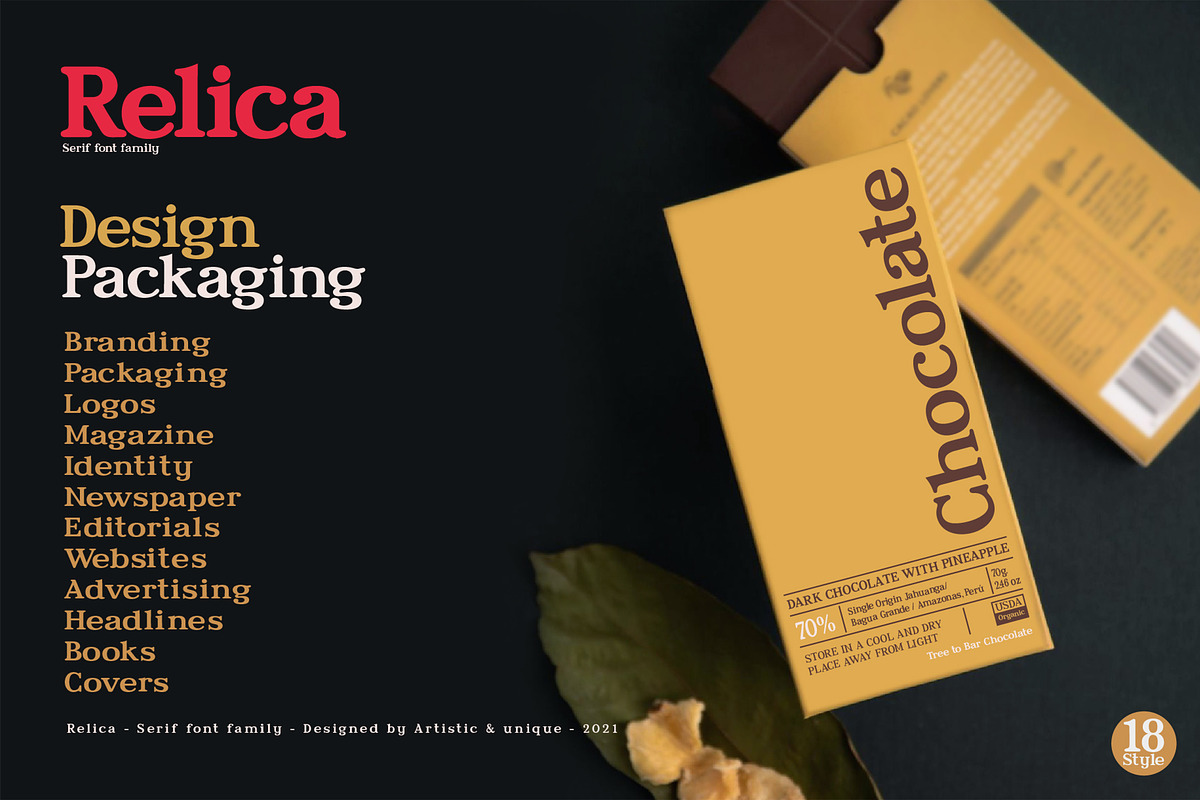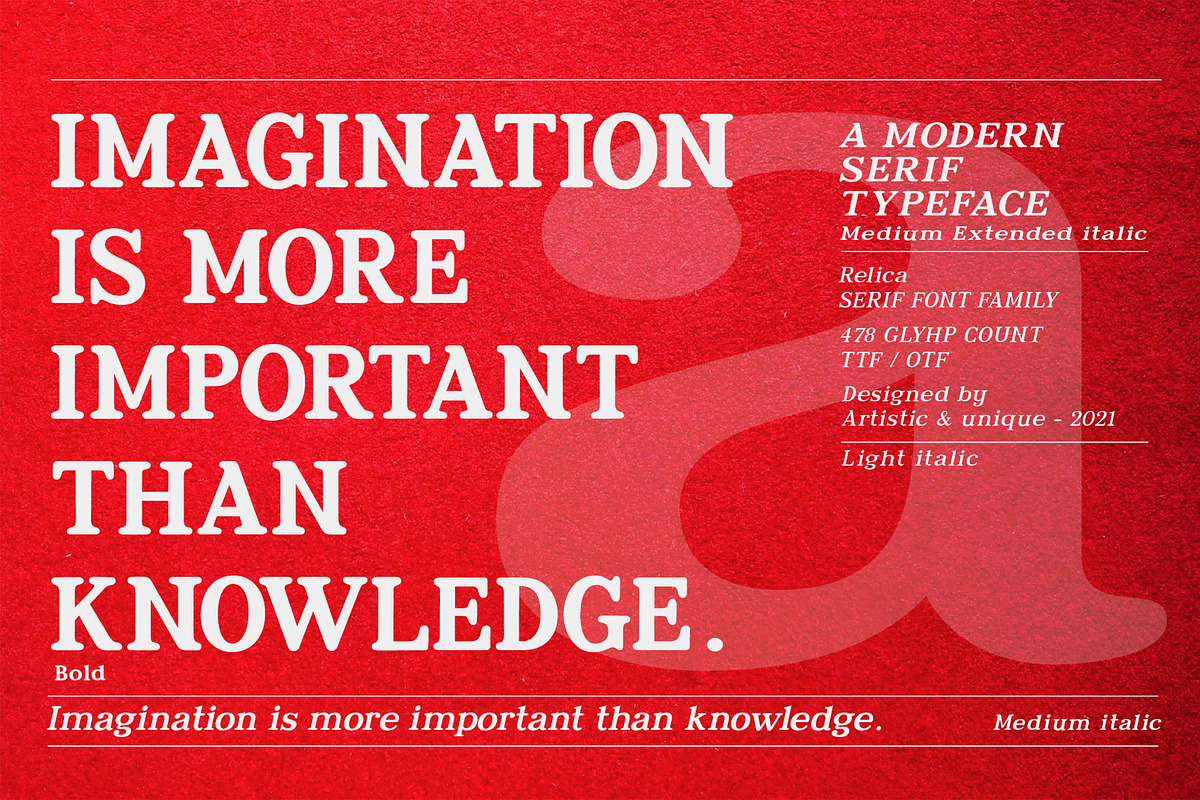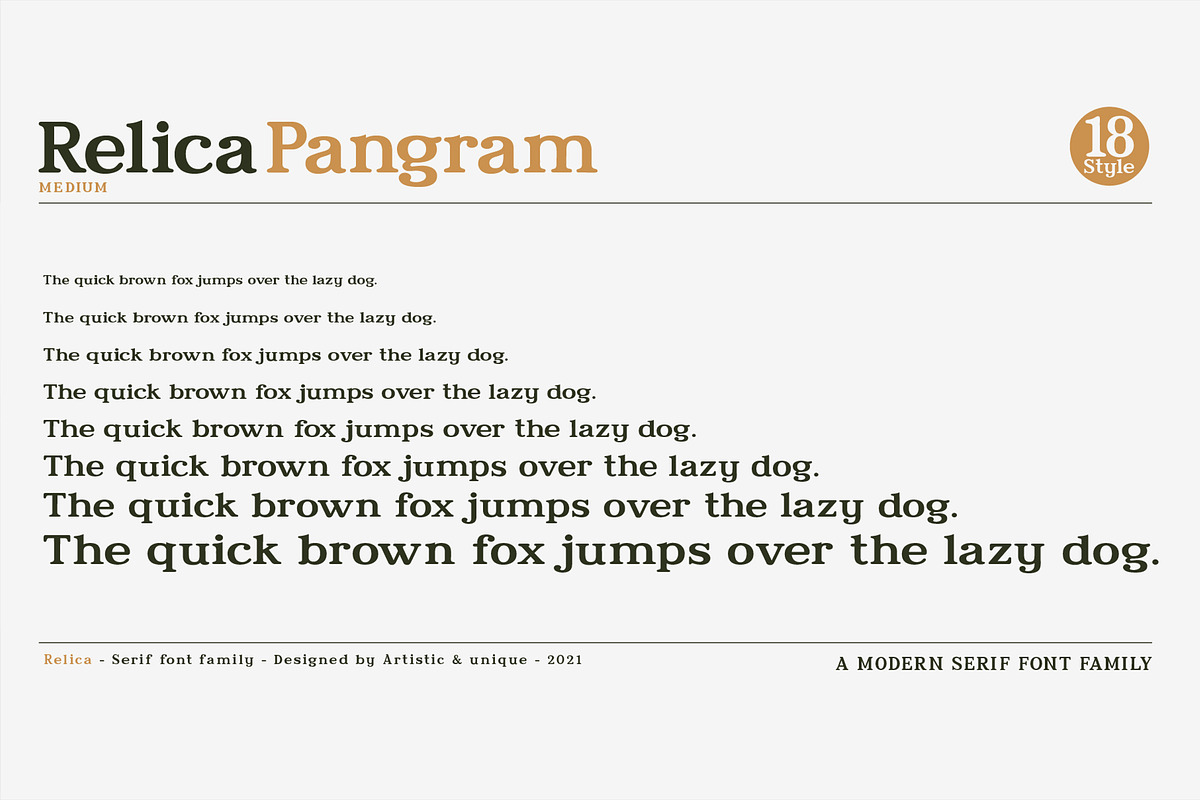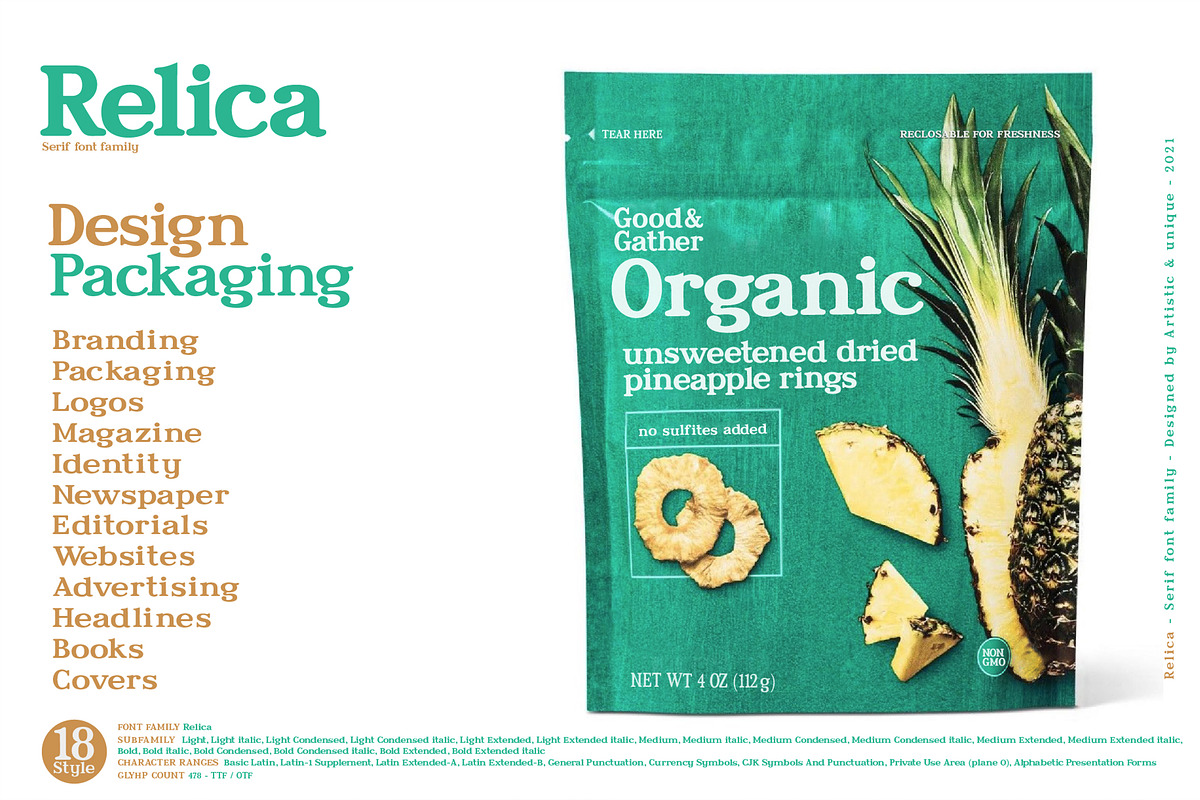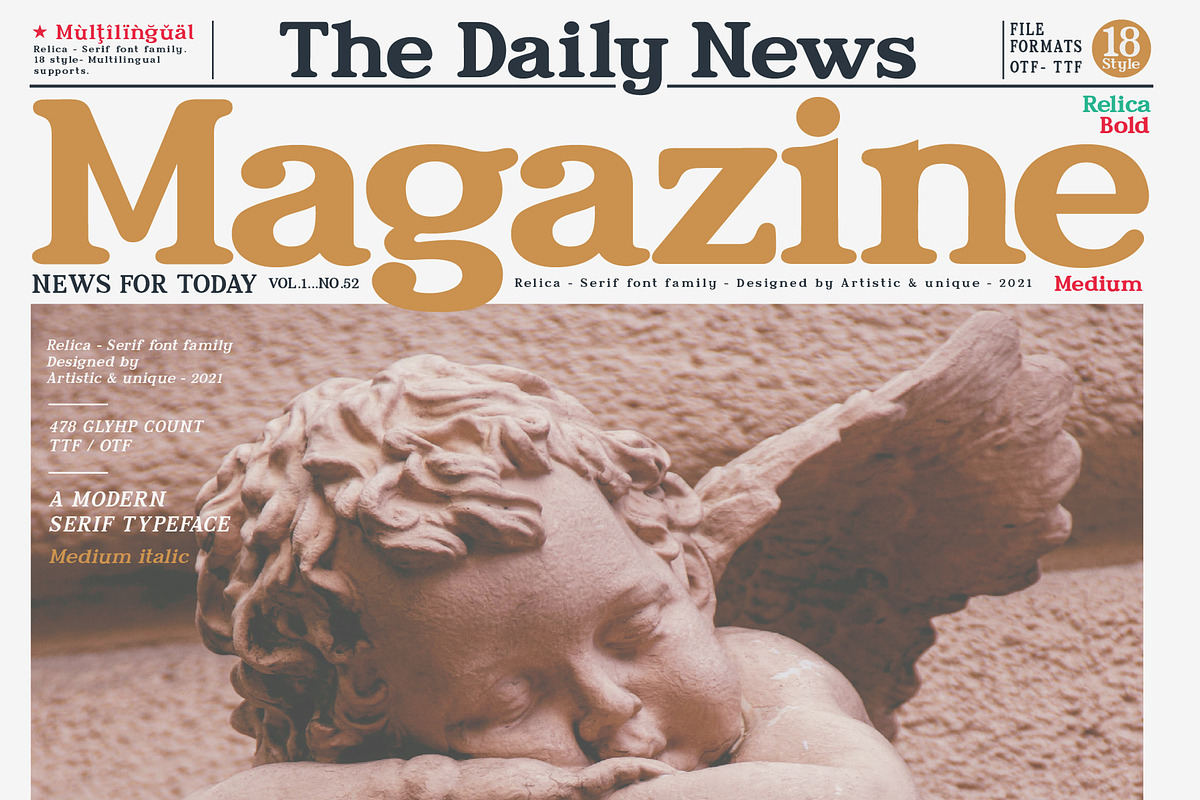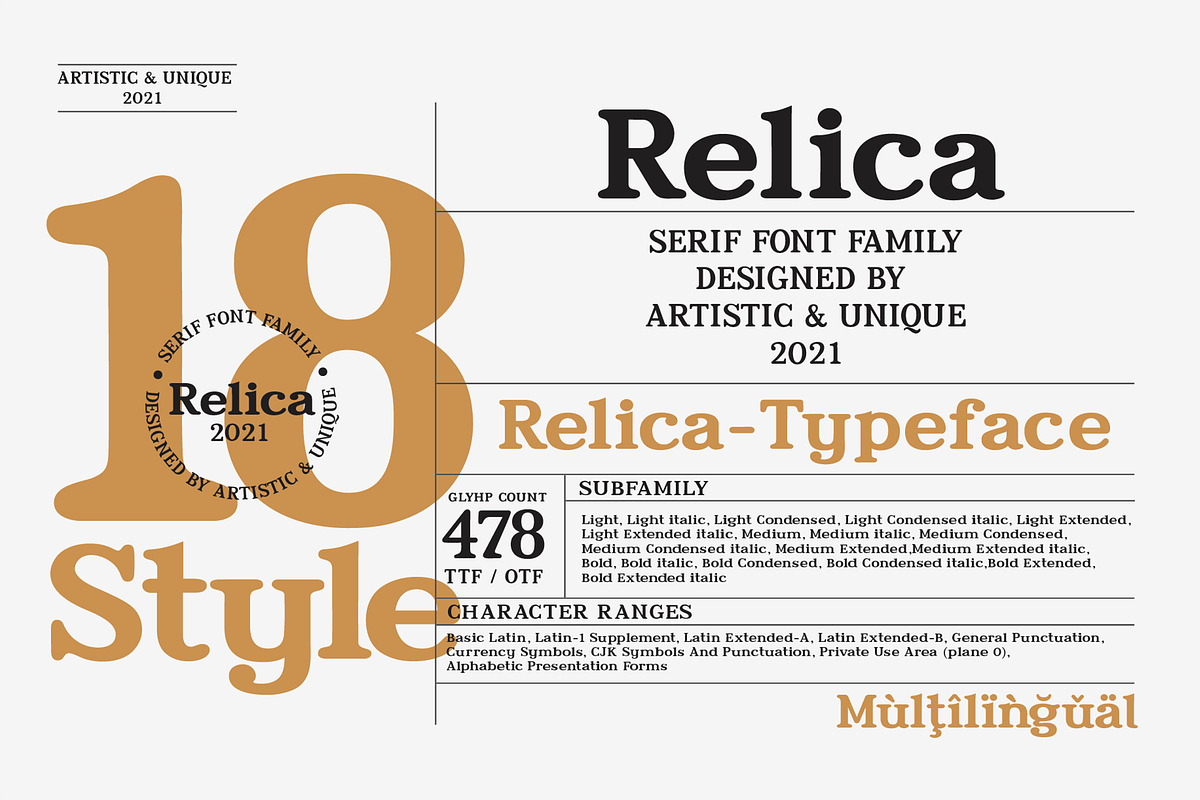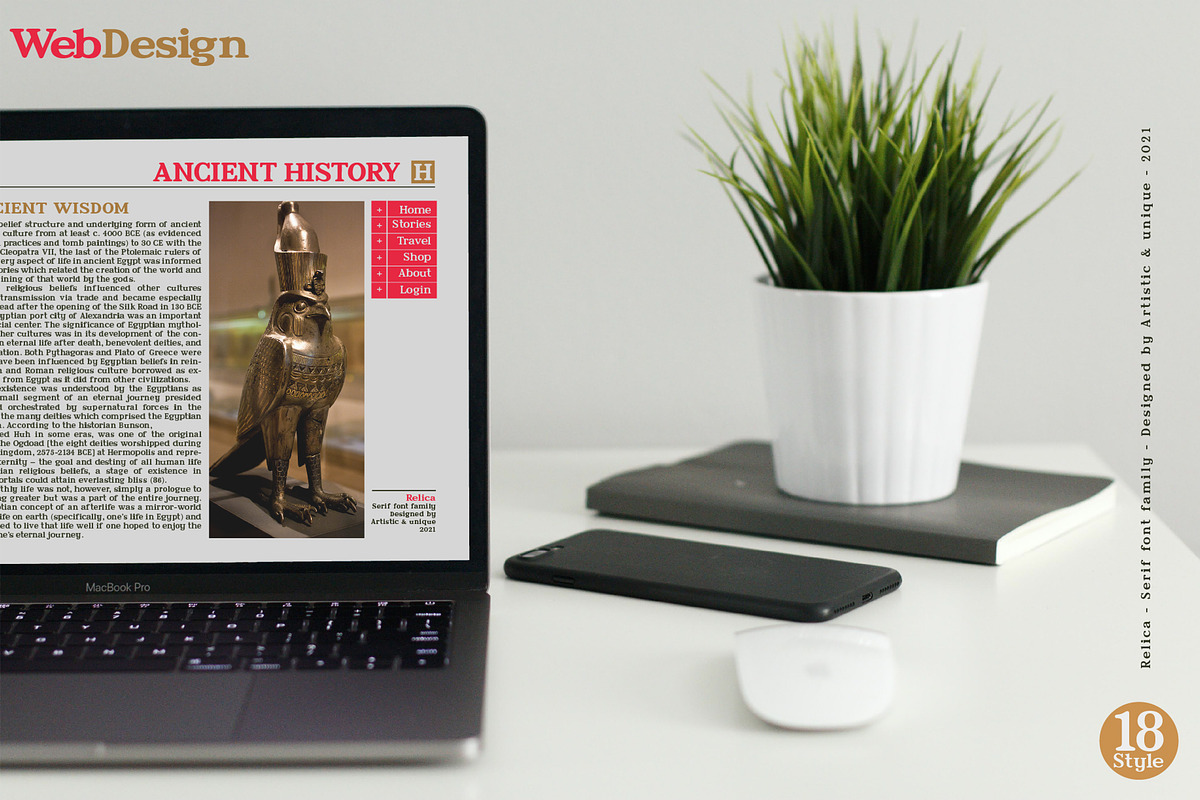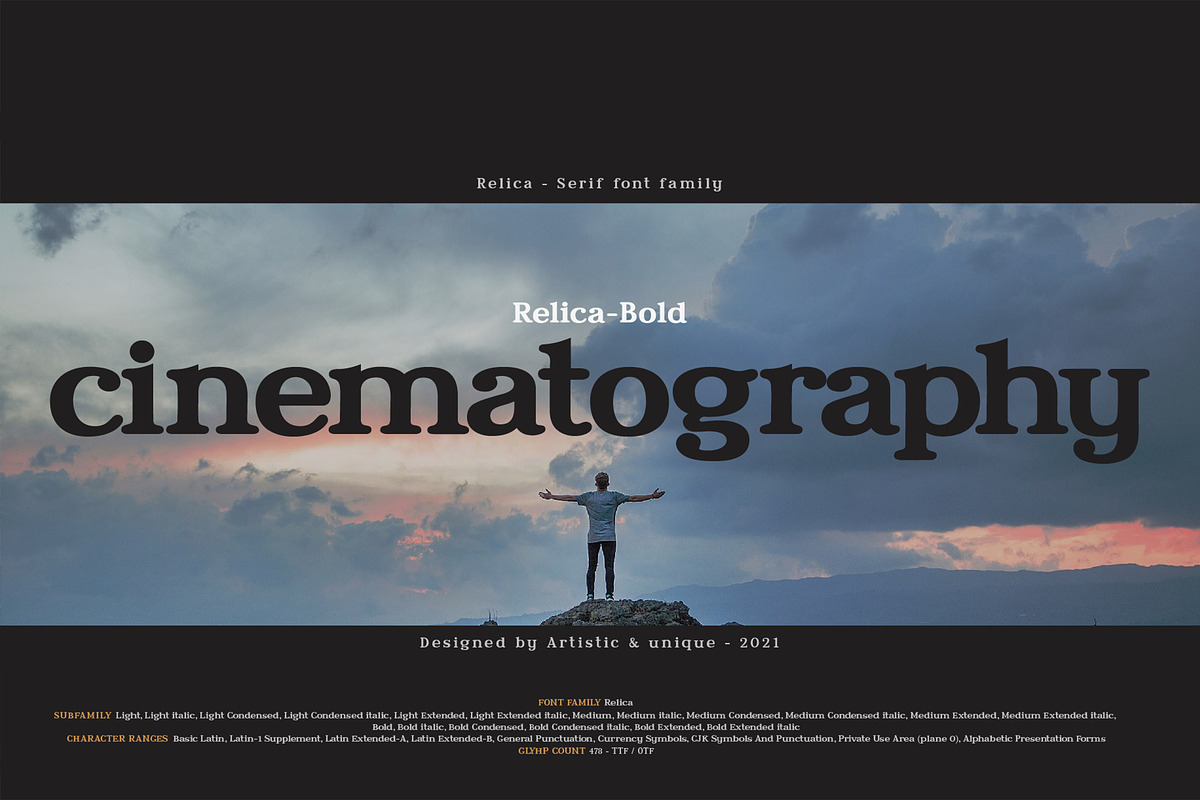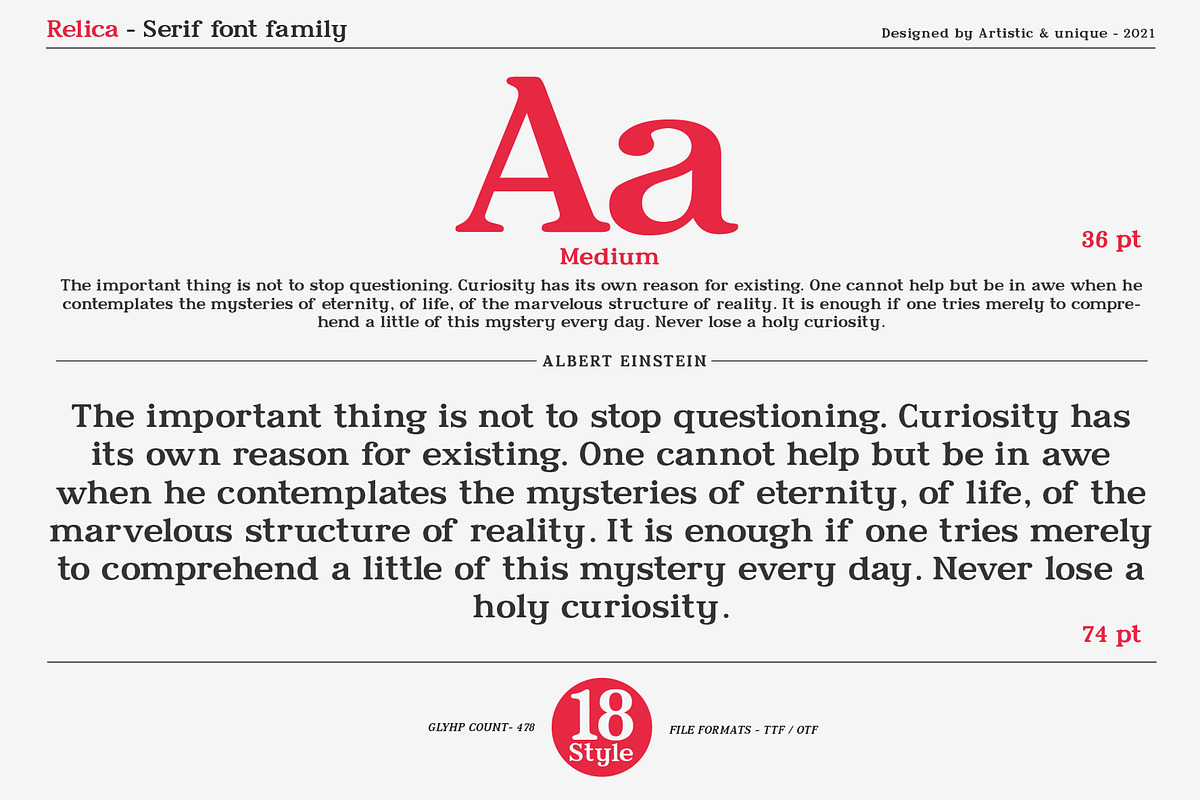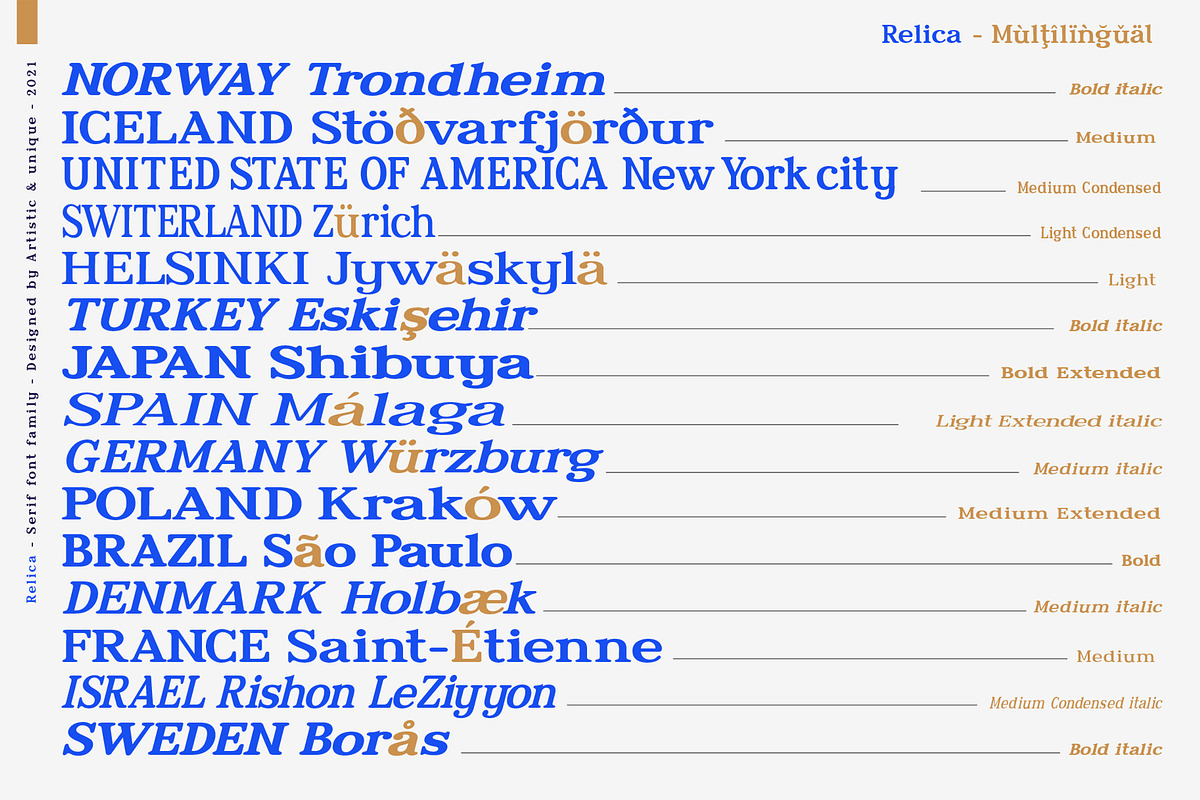
Relica - Serif font family
Relica serif font family has an elegant character with smooth curved turns. If you want to try a modern or classic, elegant look, it can meet all your needs with its timeless structure that is ideal for your projects in capital and small letters.
Relica serif font family ensures good overall appearance and easy reading of texts while creating your projects (magazine, book, newspaper, etc.) especially in publishing. With its soft curved turns, it is also ideal for branding, logo design, brand identity creation, packaging design.
This font comes with uppercase, lowercase, punctuation marks, symbols and numbers, ligatures, and multilingual options.
Light
Light italic
Light Condensed
Light Condensed italic
Light Extended
Light Extended italic
Medium
Medium italic
Medium Condensed
Medium Condensed italic
Medium Extended
Medium Extended italic
Bold
Bold italic
Bold Condensed
Bold Condensed italic
Bold Extended
Bold Extended italic